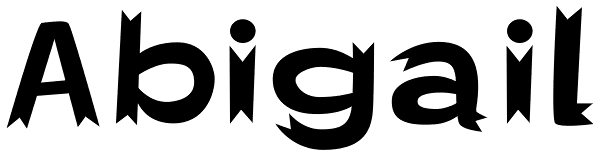
Abigail
Abigail is a font designed by Ethan Dunham that looks like it is made of ribbons. It comes in two versions, plain and dots. This whimsical font is perfect for headlines that need a contemporary but informal feel.
Abigail Dots
Abigail